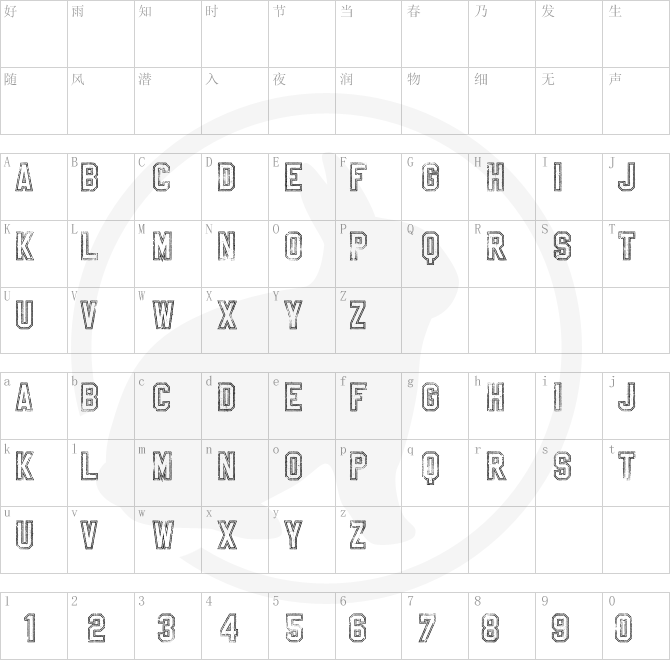
- Font Name:Sablon Up
SablonUp-OutlineAlt.otf is a very beautiful artistic font, SablonUp-OutlineAlt.otf is widely used in the design and printing of various books and pictures,SablonUp-OutlineAlt.otf has a strong visual impact,SablonUp-OutlineAlt.otf is a commonly used font in newspapers, magazines and books, and is used in posters, e-commerce Poster design, store design, logo design, font design and other fields.SablonUp-OutlineAlt.